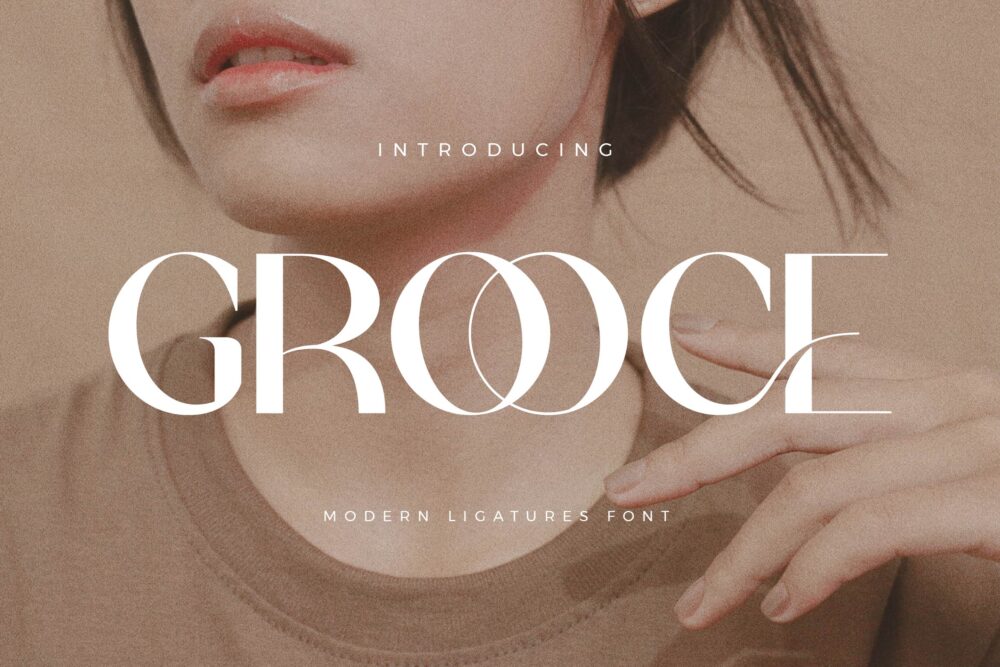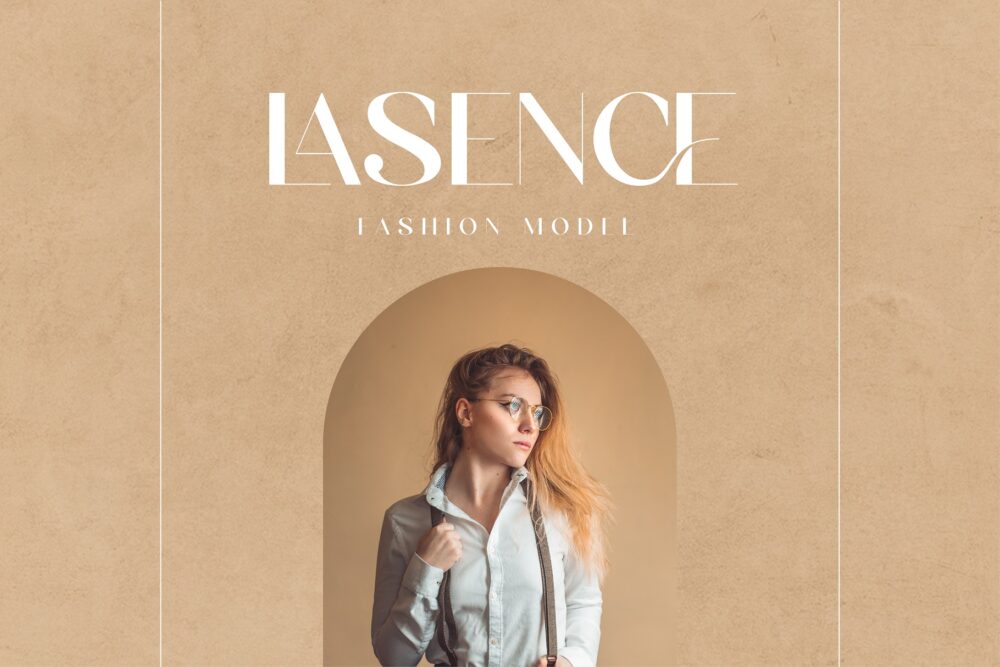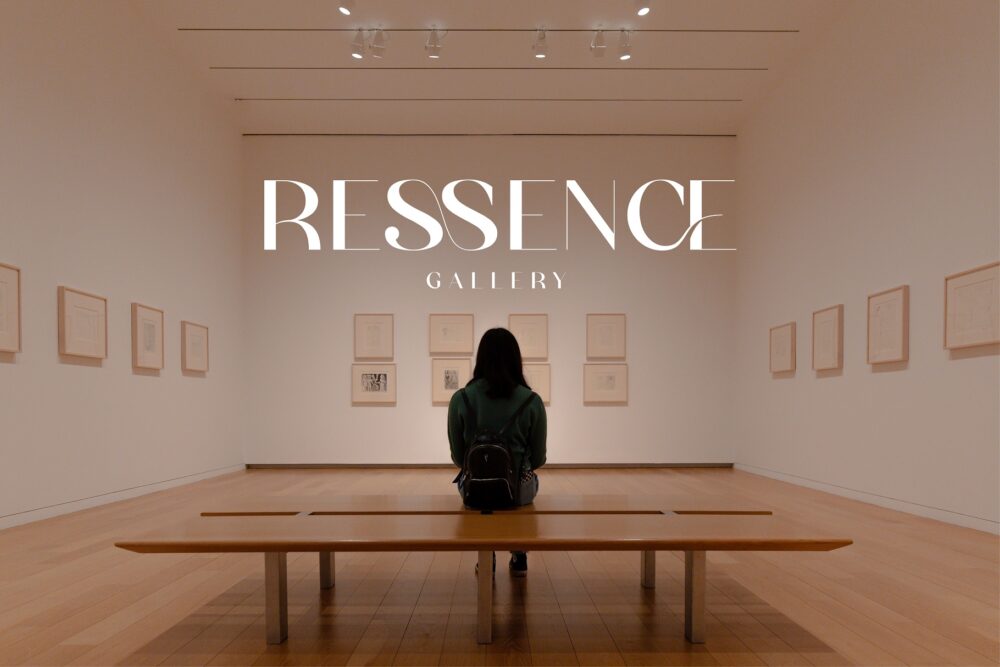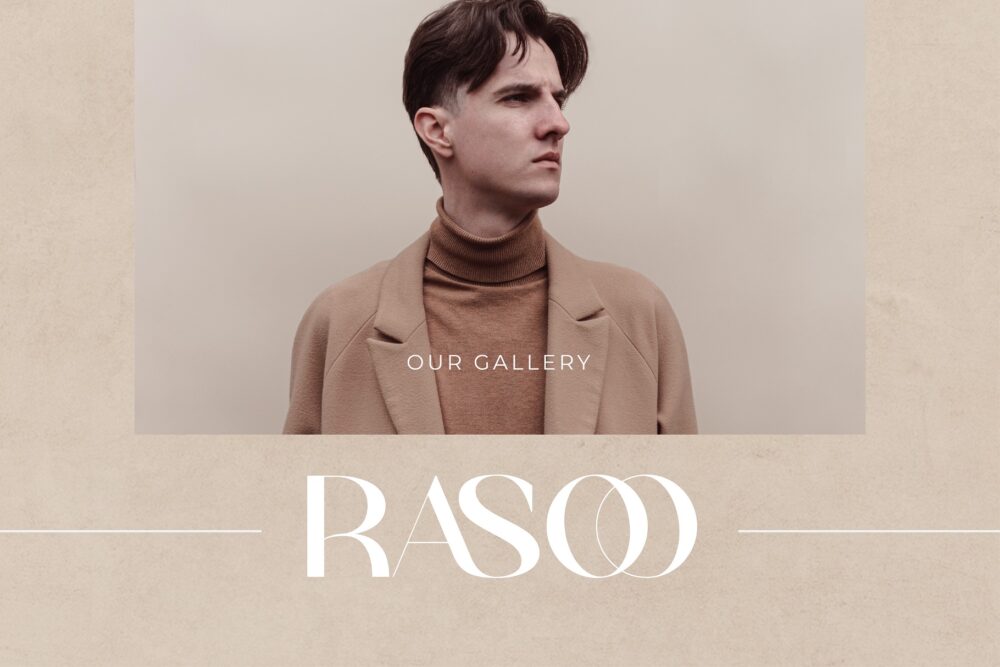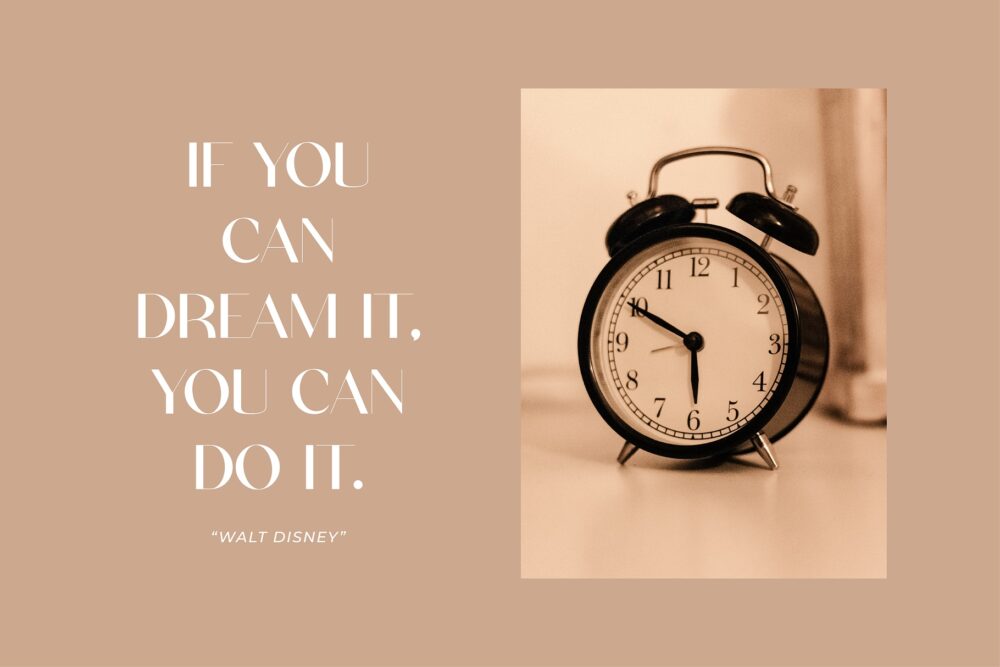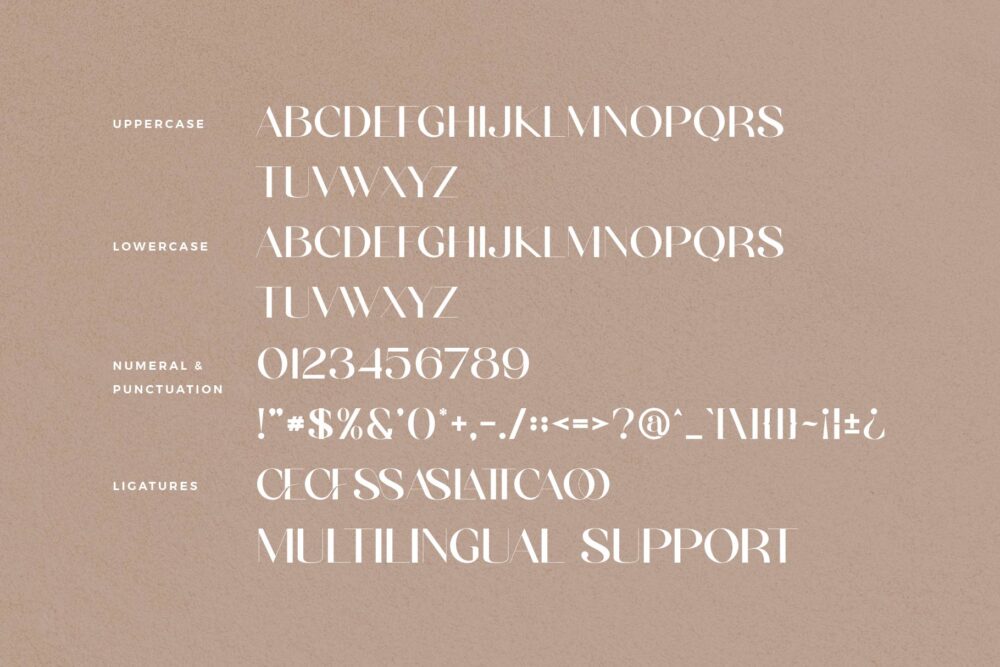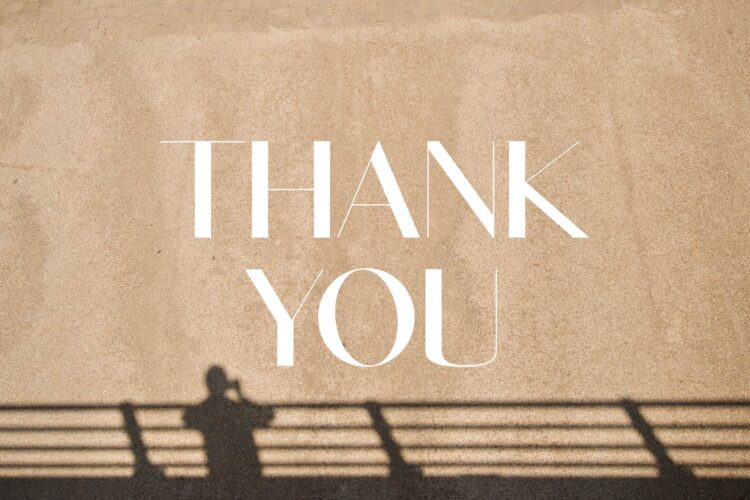
Grooce
Grooce Sans Font Typeface inspired by the famous minimalist logo perfect for the purposes of designing templates, brochures, videos, advertising branding, logos, invitation, layout design, elegant crafting, beauty design and other.
Grooce – Modern Sans Serif Font